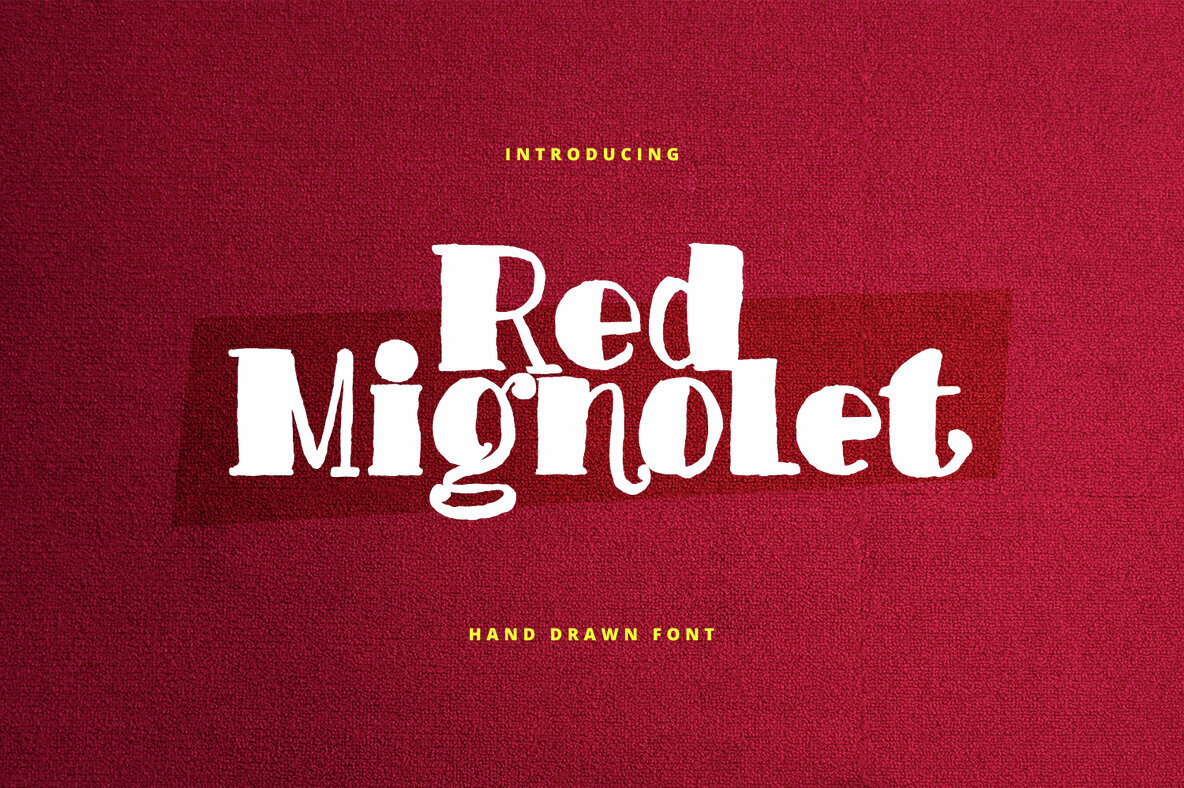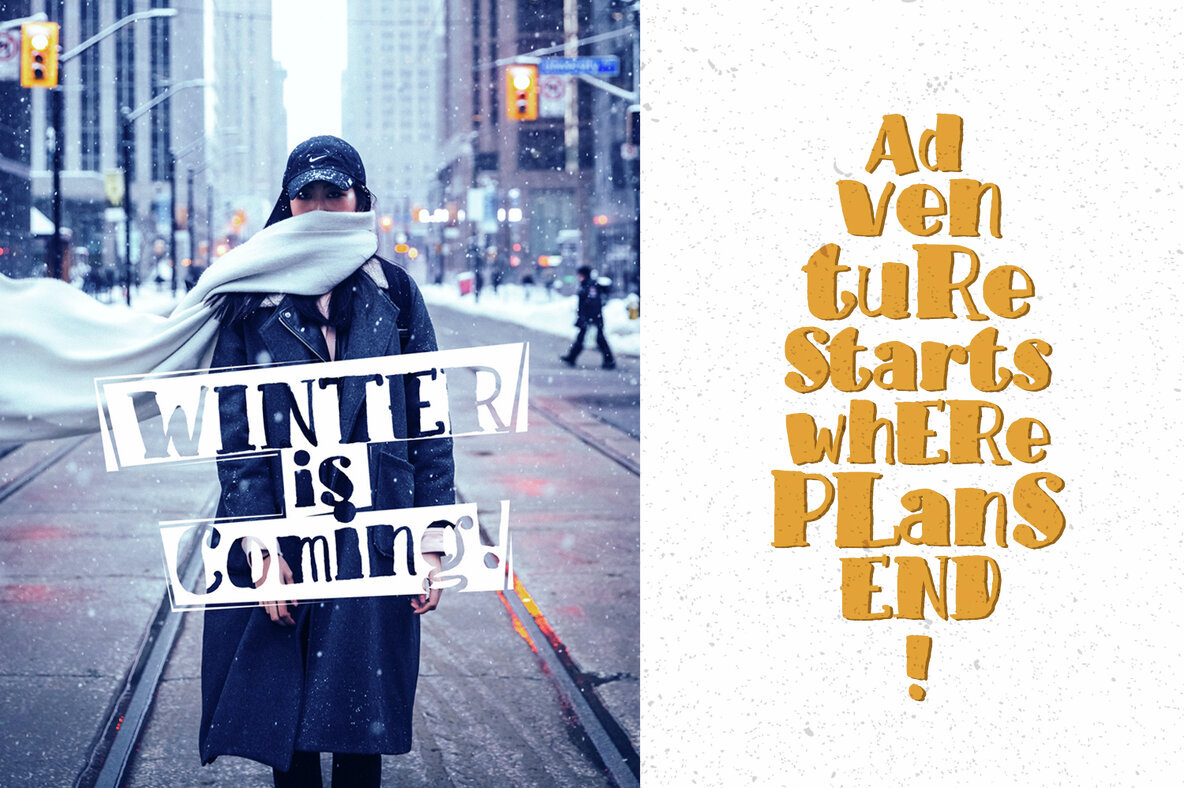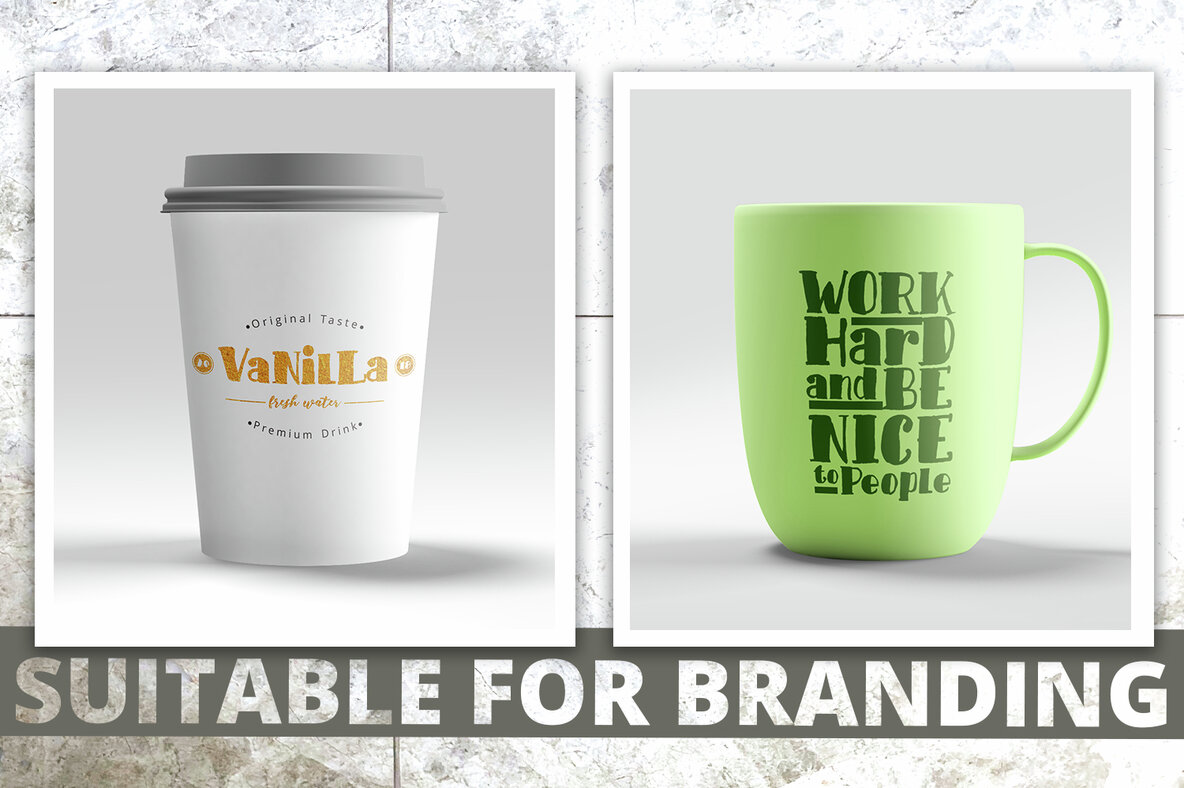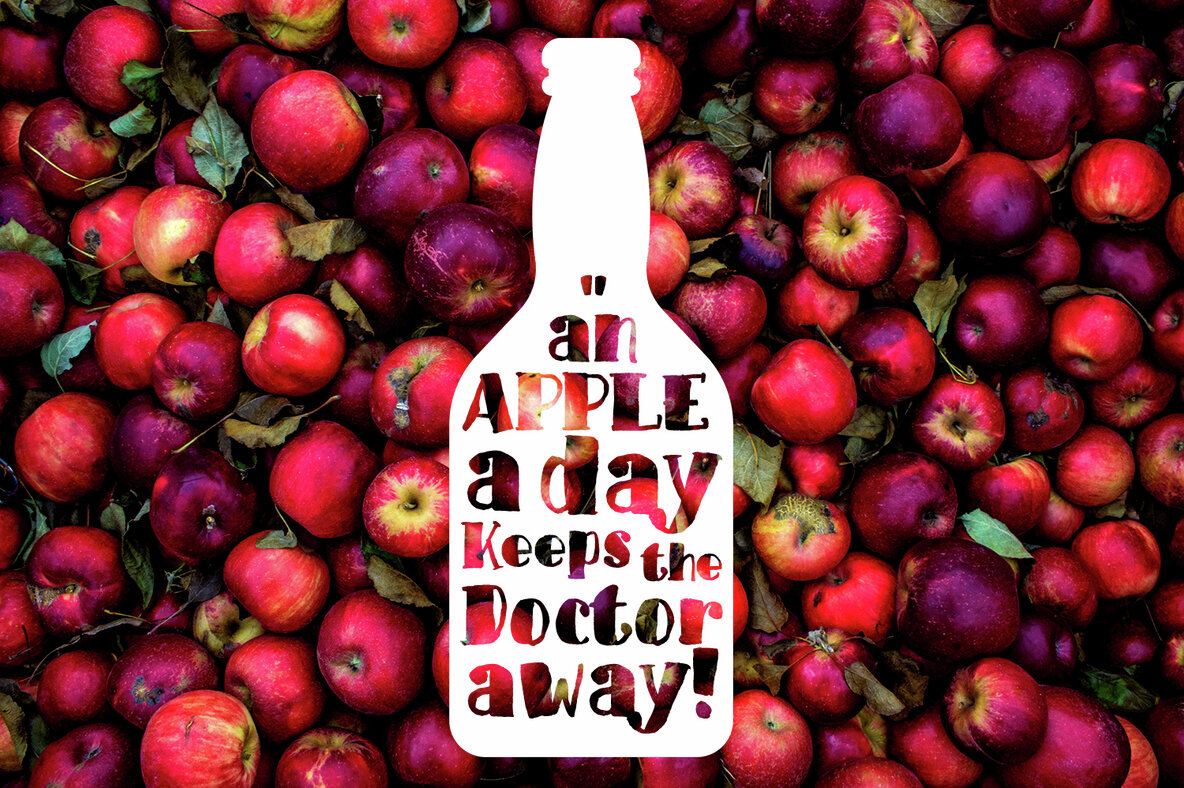
Red Mignolet Font
Red Mignolet
Discover Red Mignolet, a lively slab brush font with a hand-drawn aesthetic. Its bold and natural style makes it perfect for today's trendy designs, especially when branding on mugs or cups. This font effortlessly lends a painted feel to your creative projects. With a full set of lowercase and uppercase letters, punctuation, numbers, and multilingual support, Red Mignolet is designed for ease of use. It also includes ligatures and stylistic alternatives, perfect for software like Adobe Illustrator, Photoshop, or InDesign. Elevate your design projects with the unique flair of Red Mignolet.Red Mignolet: The Bold Hand-Drawn Brush Font
Versatile Design Applications